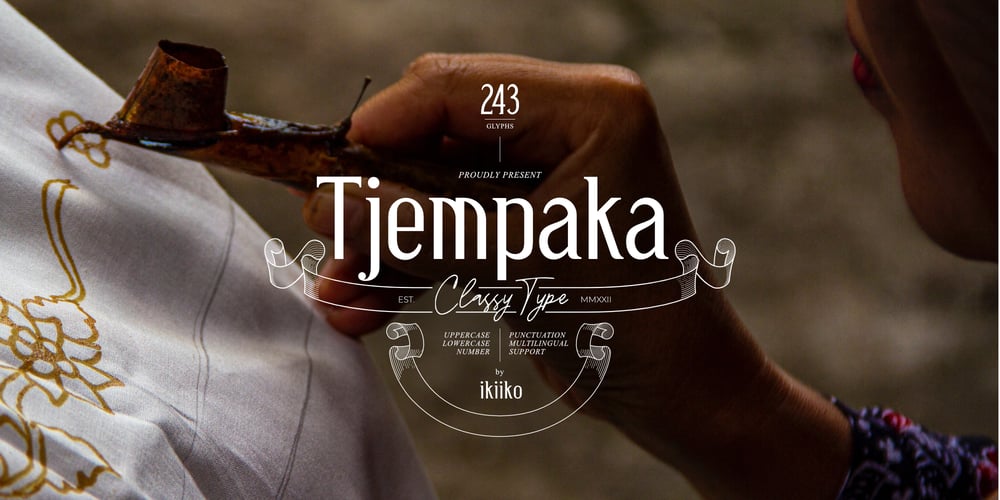
Tjempaka Font Family was designed by Andhika Pradana and published by IKIIKOWRK. Tjempaka contains 1 styles and family package options. Introducing Tjempaka – Classy Type, created by ikiiko.Tjempaka is a modern condensed serif type with a elegant style. This font shape is simple form character with vintage touch. This typeface is perfect for an brand logo, magazine design, travel design layout, wedding invitation, flyer design, poster design, inspirational quotes, photography layout, or simply as a stylish text overlay to any background image.What’s included? Uppercase & Lowercase Number & Punctuation Multilingual Support Works on PC & Mac Enjoy our font and if you have any questions, you can contact us by email : ikiikowrk@gmail.com